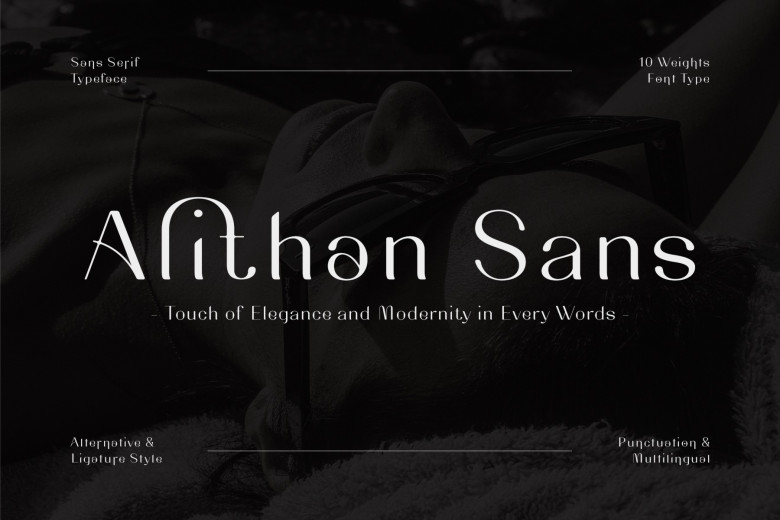
Alithan Sans Font Family
Alithan Sans Font Family makes your designs look better with its minimalistic and sleek design. This incredibly flexible sans serif font comes with five weights and their italics, and a collection of ligatures to help you create almost anything you want. Alithan Sans – the ideal font for today’s application and for the sophisticated and up to date design assignments.
Alithan Sans Serif Font Family